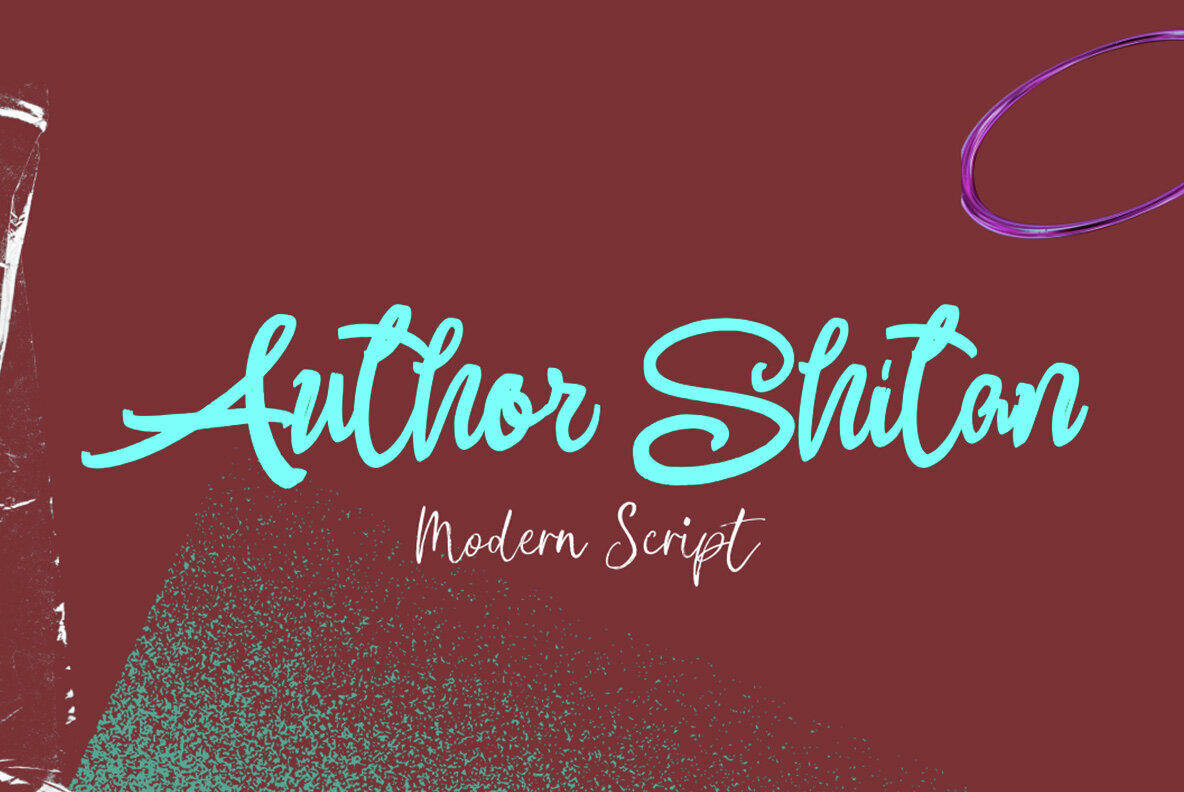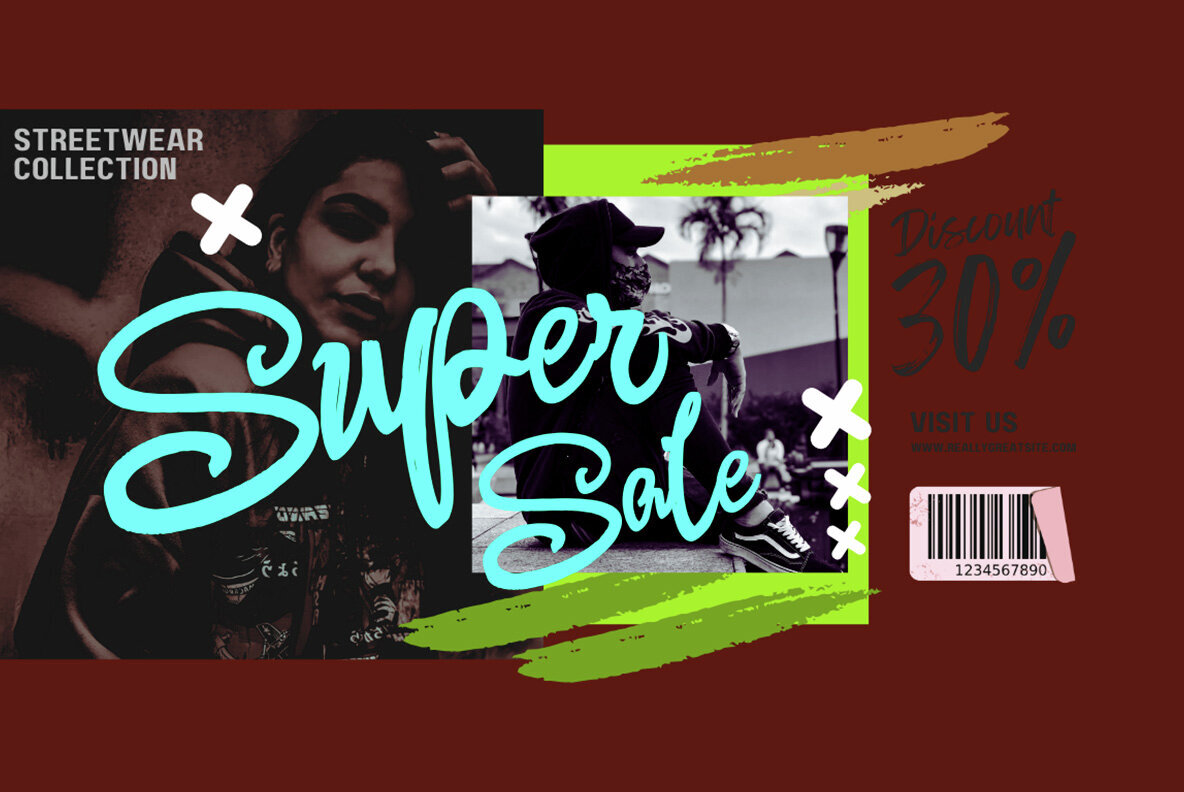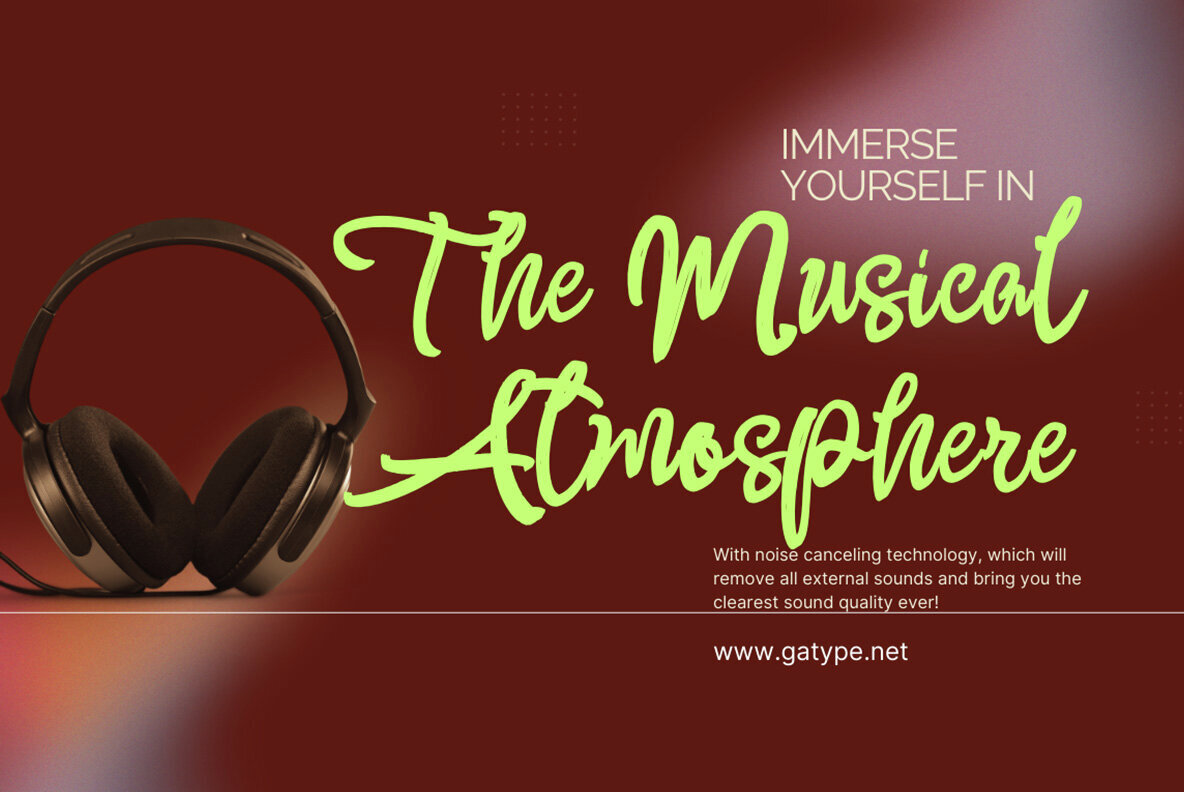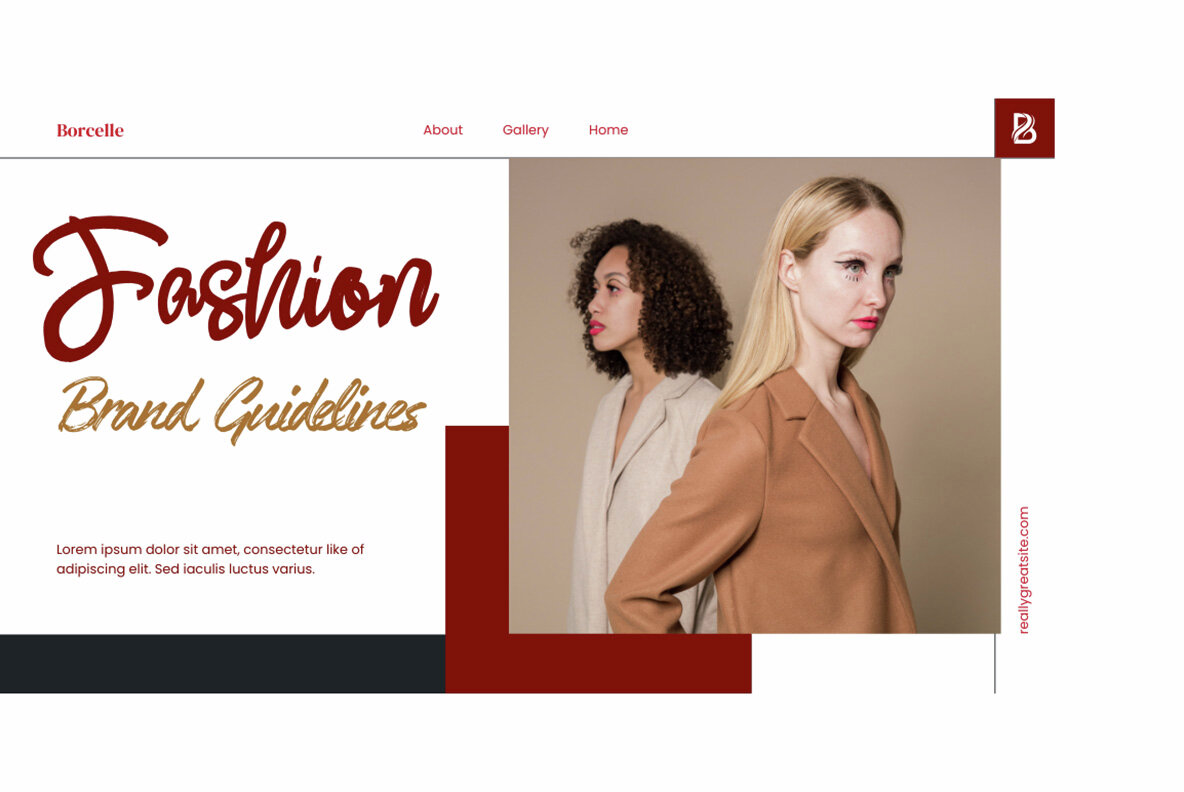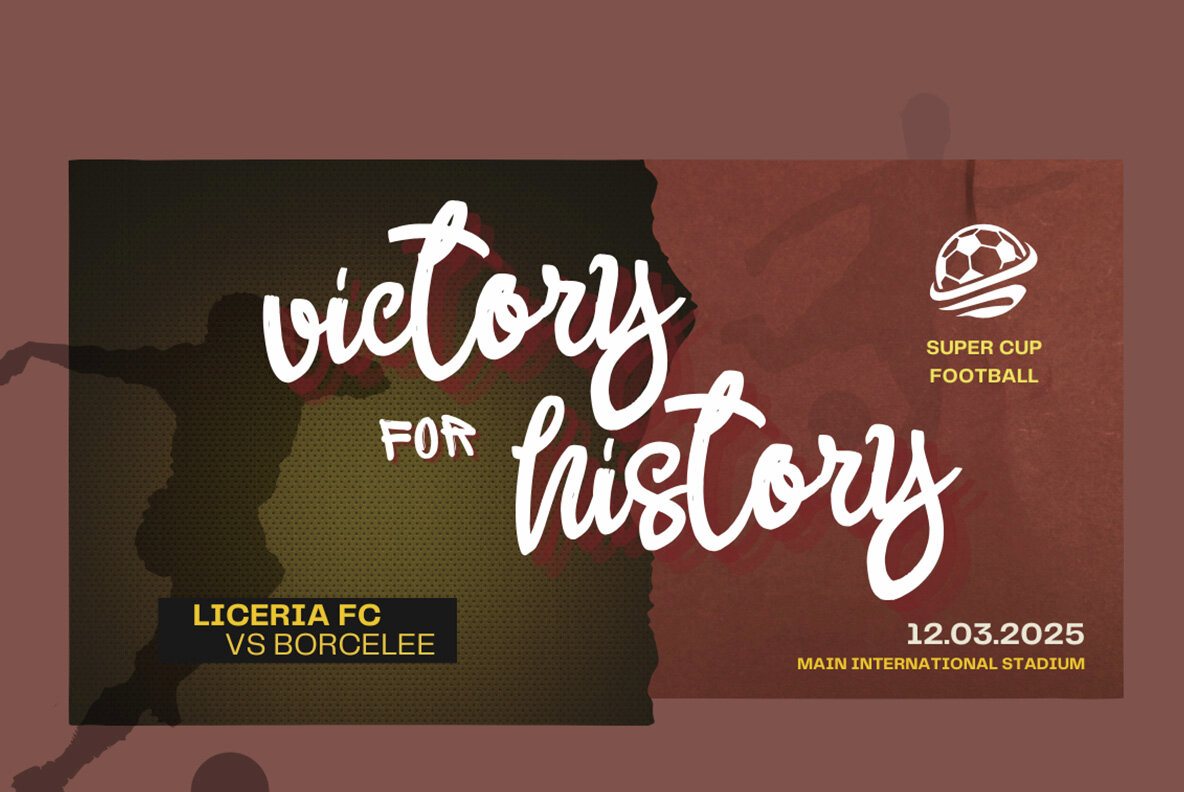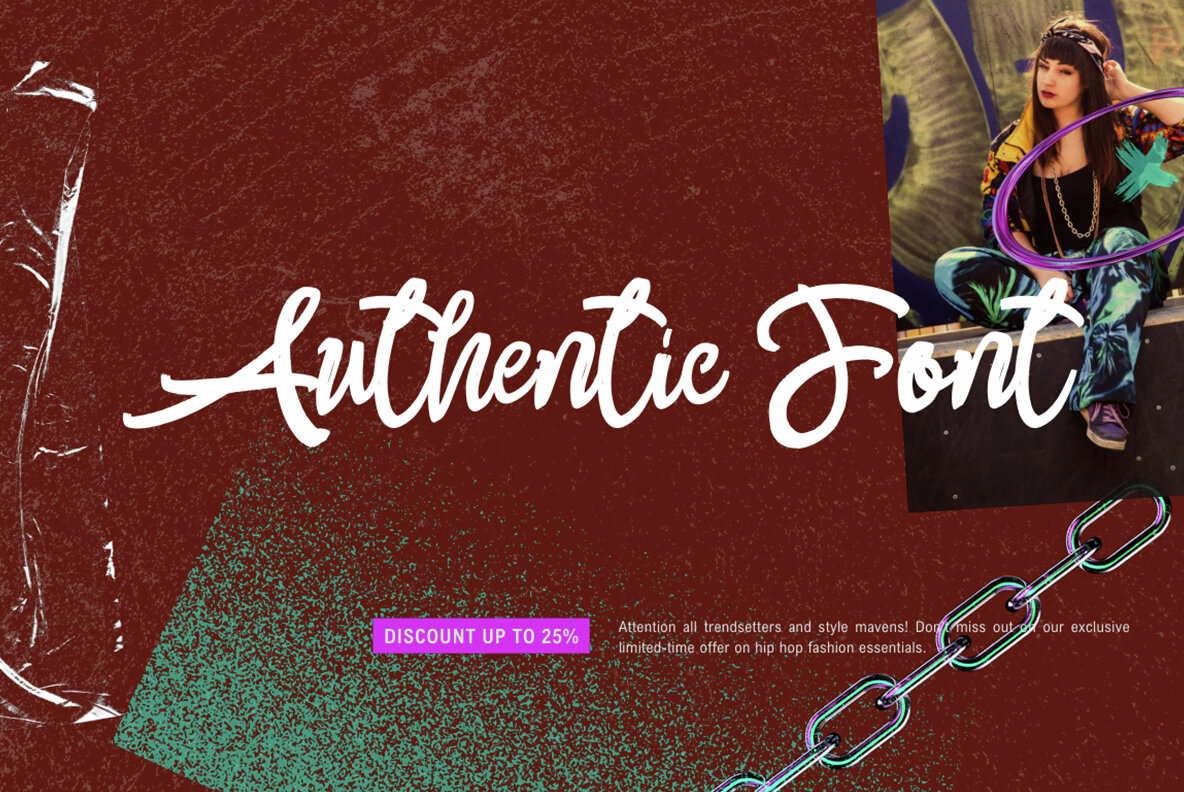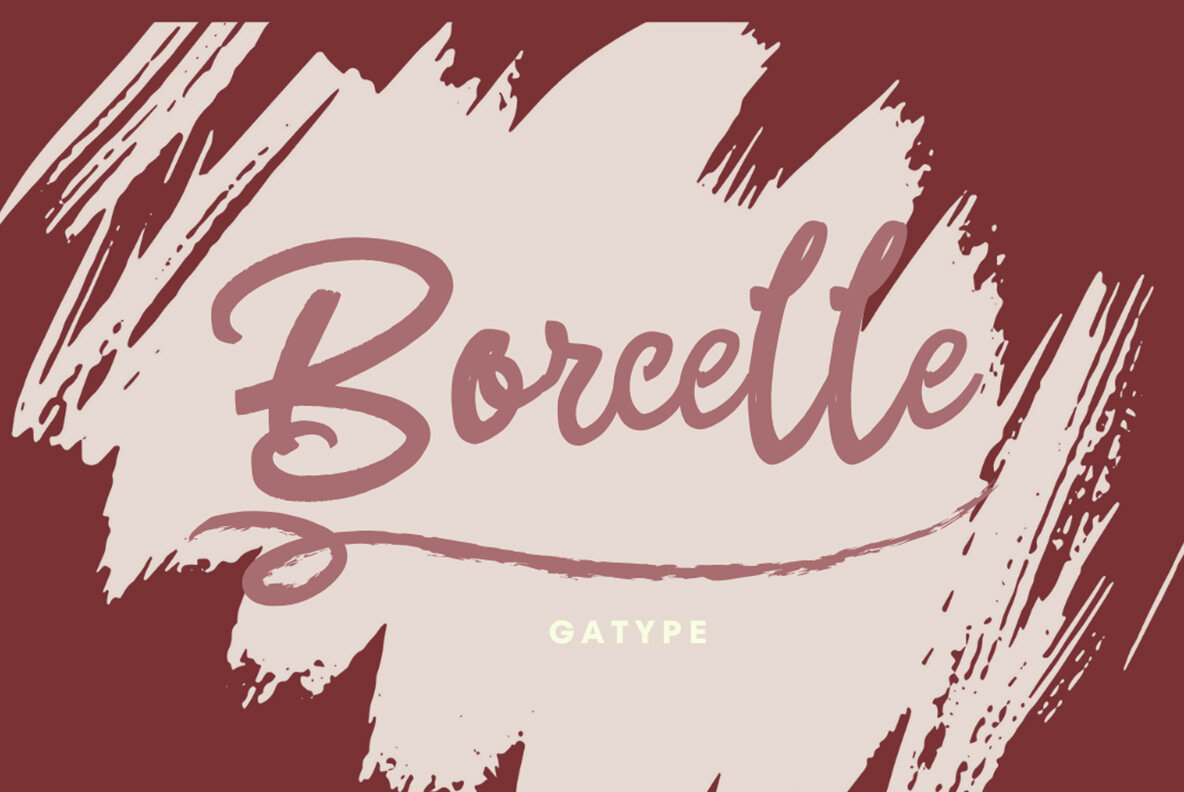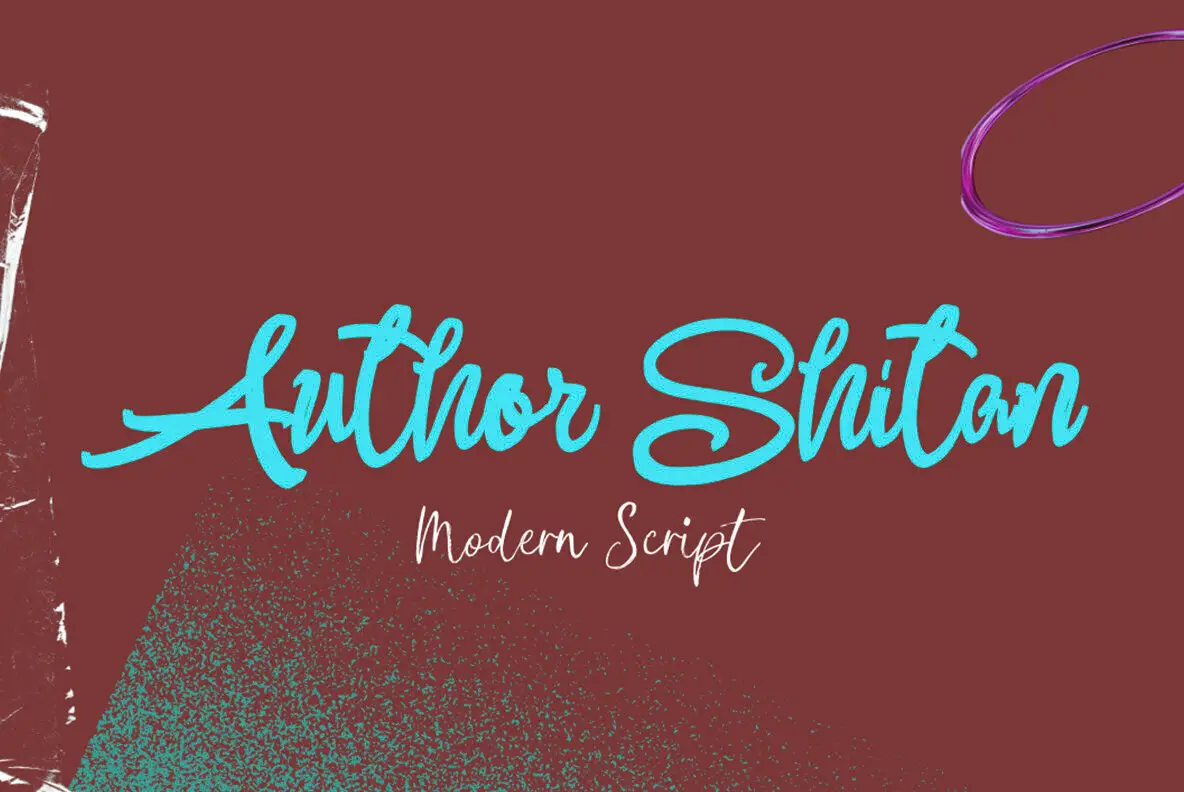
Author Shitan Font
Author Shitan
Discover the refined elegance of Author Shitan, a modern script font crafted to infuse any design with a sense of graceful fluidity. Perfectly suited for a variety of creative projects, this font is an essential addition to your collection. Whether you're designing logos, album covers, quotes, greeting cards, book covers, wedding themes, or social media content, Author Shitan delivers impeccable style and sophistication.Author Shitan Font